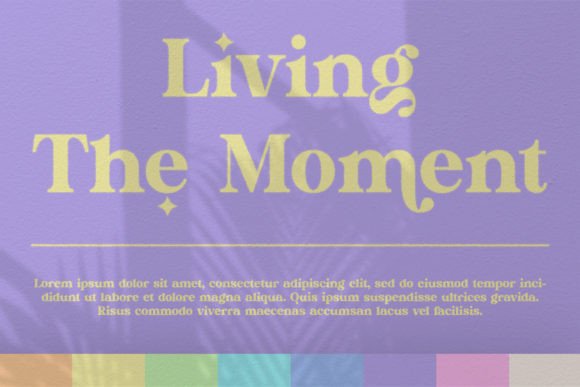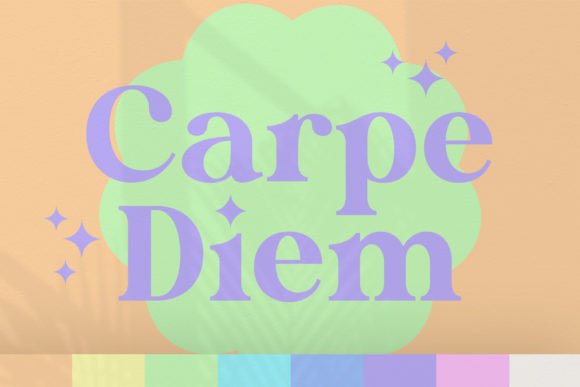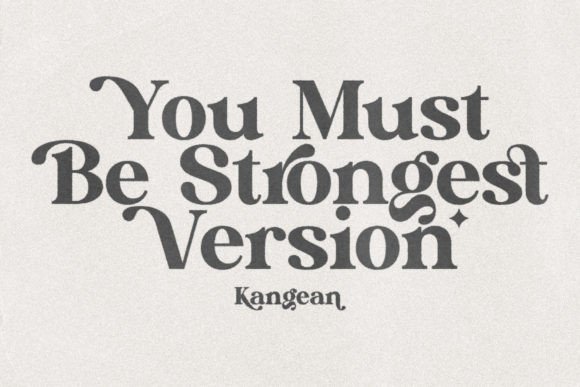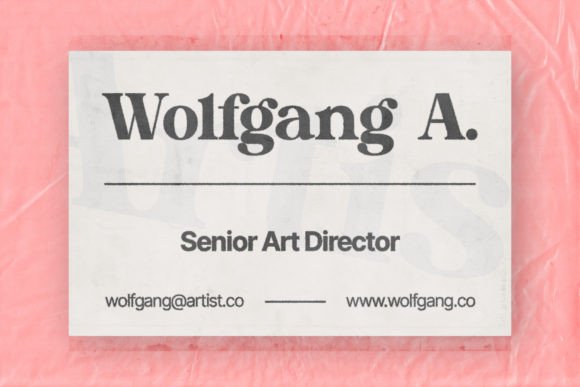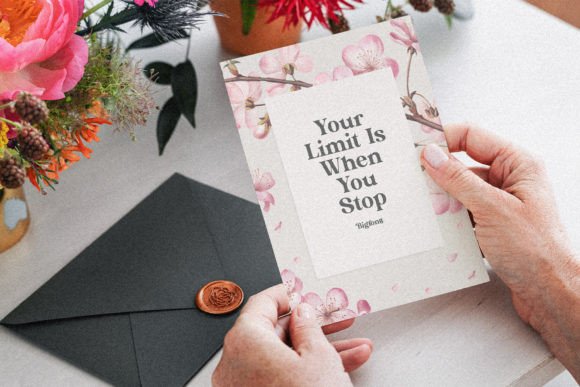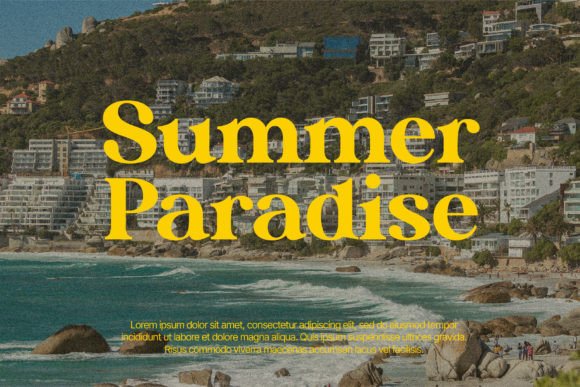
Introduction to Kangean Font
Introducing “Kangean,” a cutting-edge font designed for the modern era.
This retro serif display font brings a touch of nostalgia with a contemporary twist Immerse your designs in a unique blend of classic and modern aesthetics, as Kangean offers a diverse range of alternates and ligatures that add character and charm to your projects.
Key Features of Kangean Font
Why Choose Kangean Font?
Kangean Font offers exceptional quality and versatility, making it a valuable addition to your design toolkit. Whether you’re creating for personal projects or commercial use, Kangean Font delivers professional results.